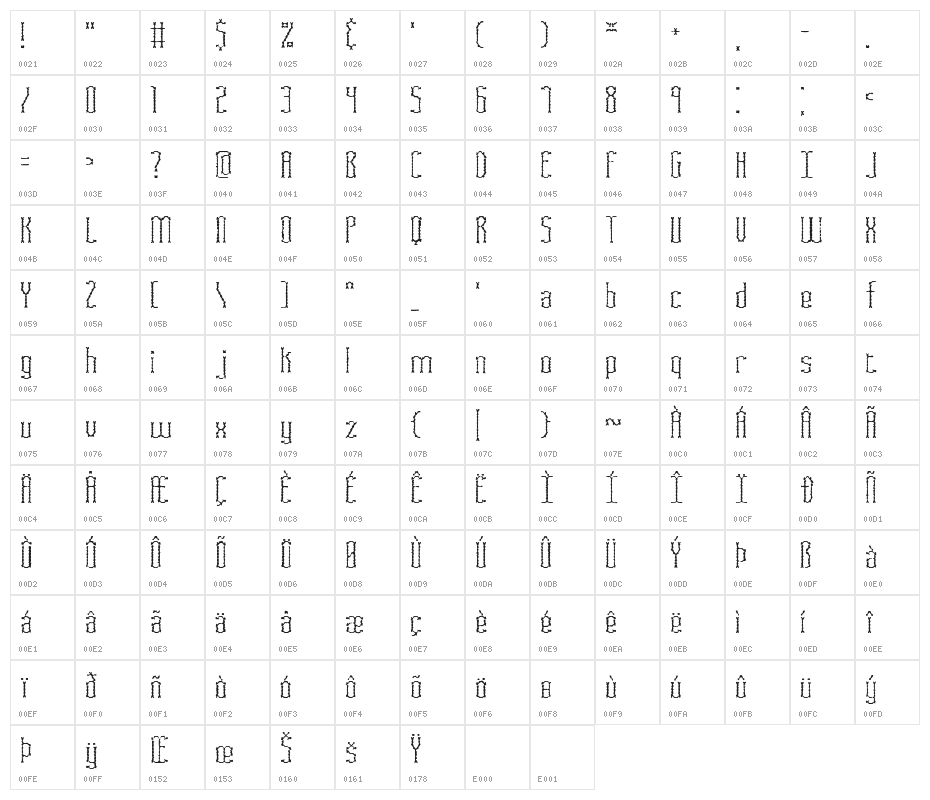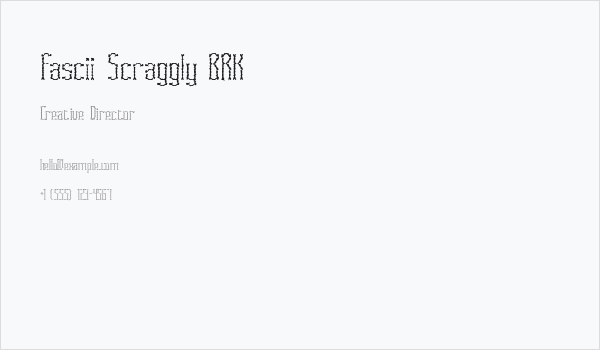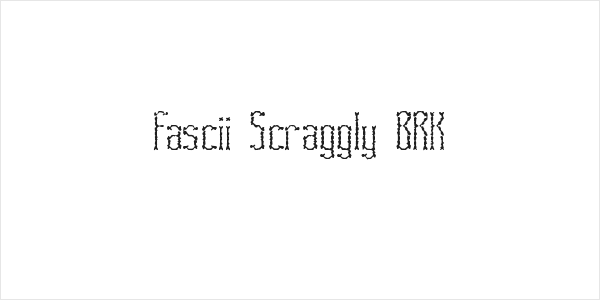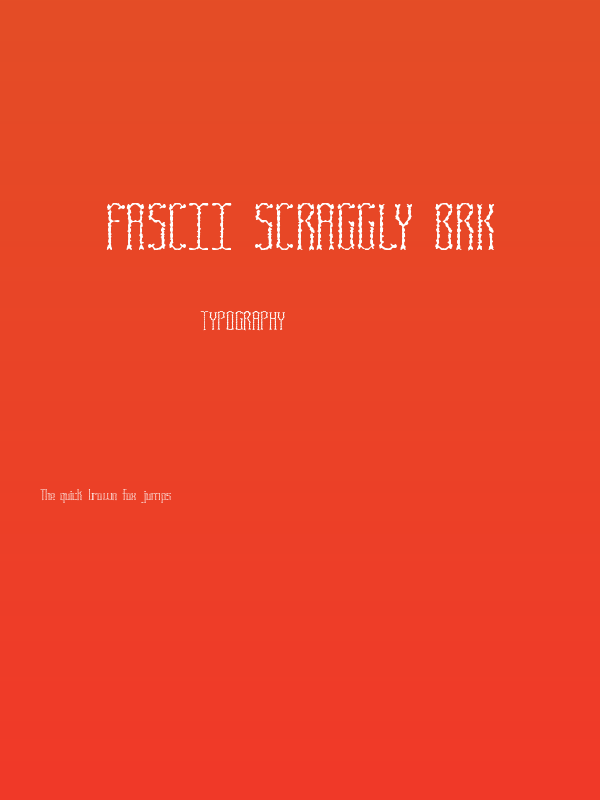
Fascii Scraggly BRK Font
Fascii Scraggly BRK Description
This font features a unique, scraggly design that gives it a distinctive, textured appearance. The characters are composed of irregular, jagged lines that create a sense of movement and energy. This style is reminiscent of hand-drawn or distressed lettering, making it stand out with its rough and edgy look. The uppercase and lowercase letters maintain a consistent height, while the numbers and special characters follow the same scraggly pattern, ensuring uniformity across the font. The overall aesthetic is bold and eye-catching, suitable for projects that require a touch of creativity and unconventional style.
Proposed ProjectsIdeal for creative projects such as posters, album covers, or branding that seeks a unique and artistic flair.